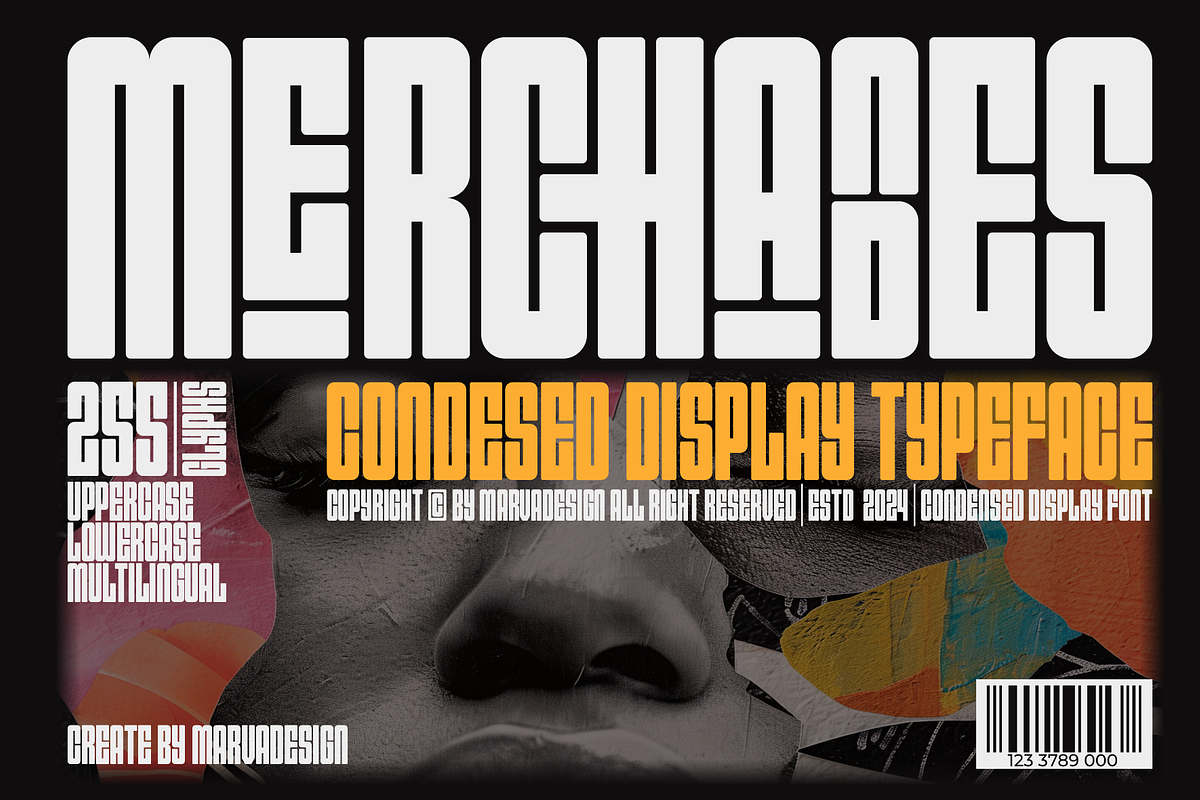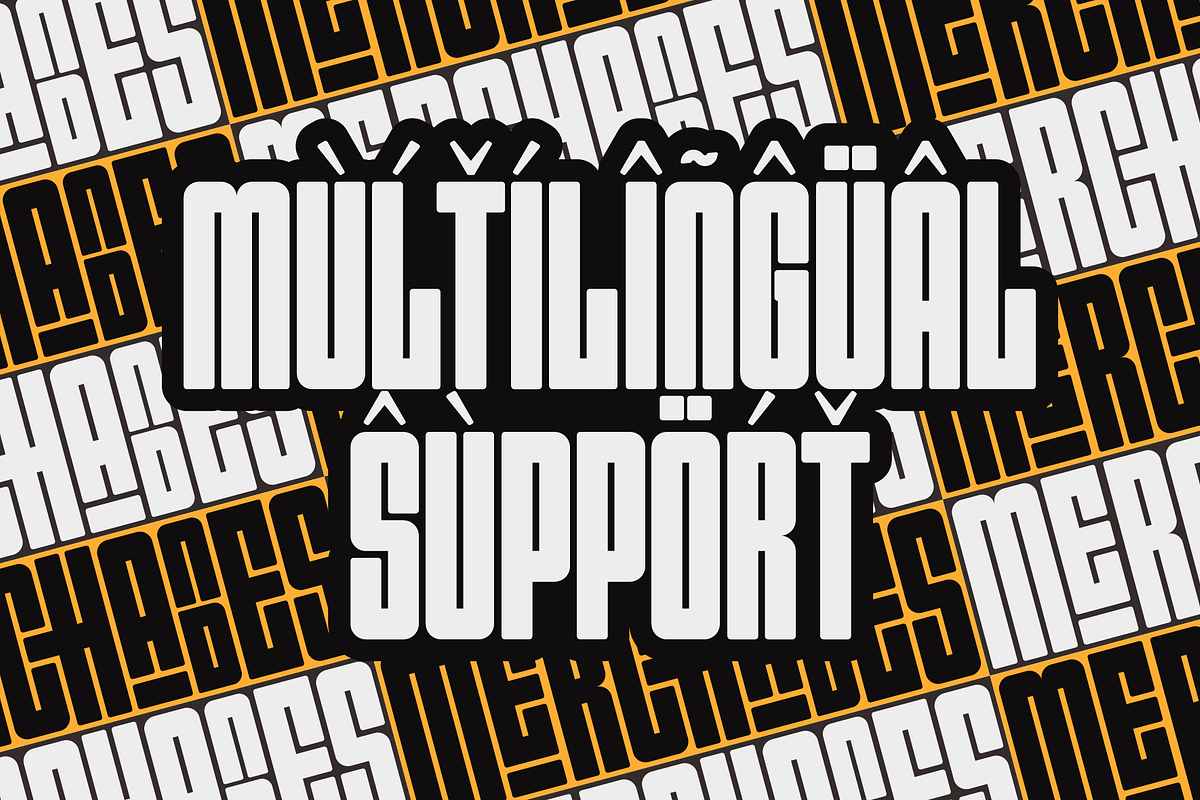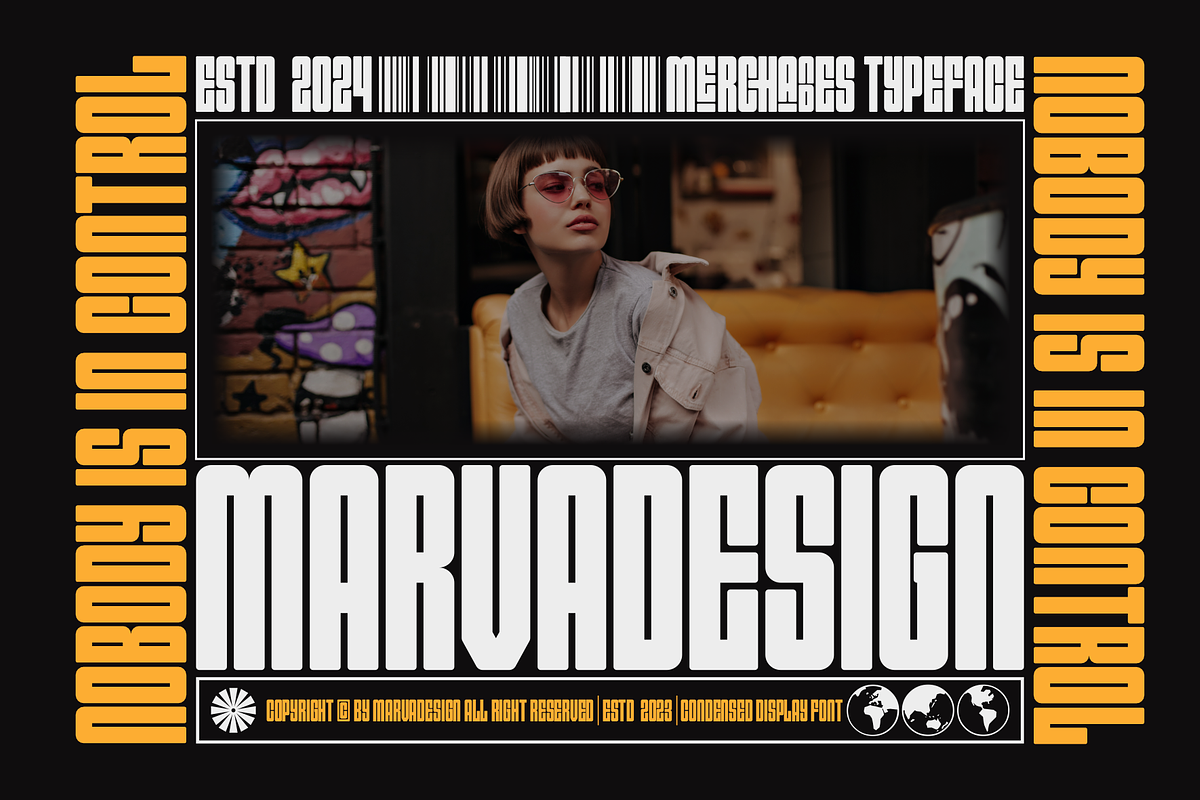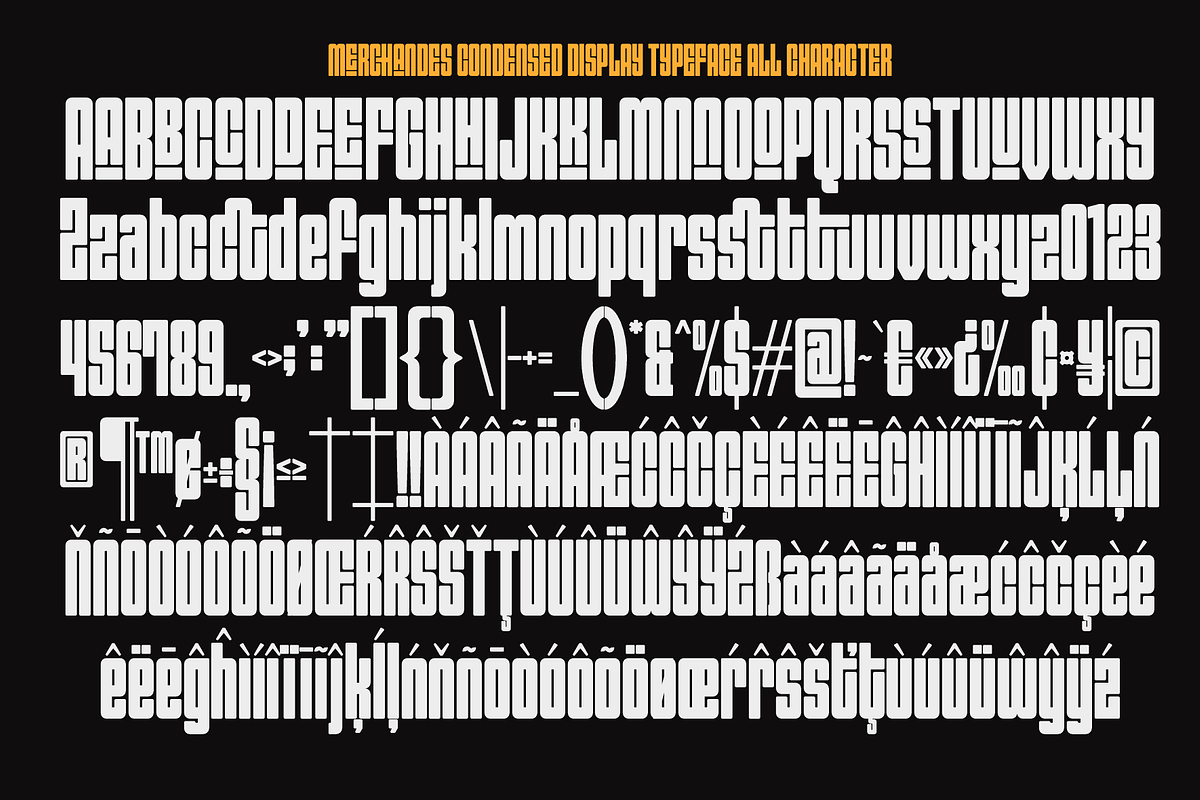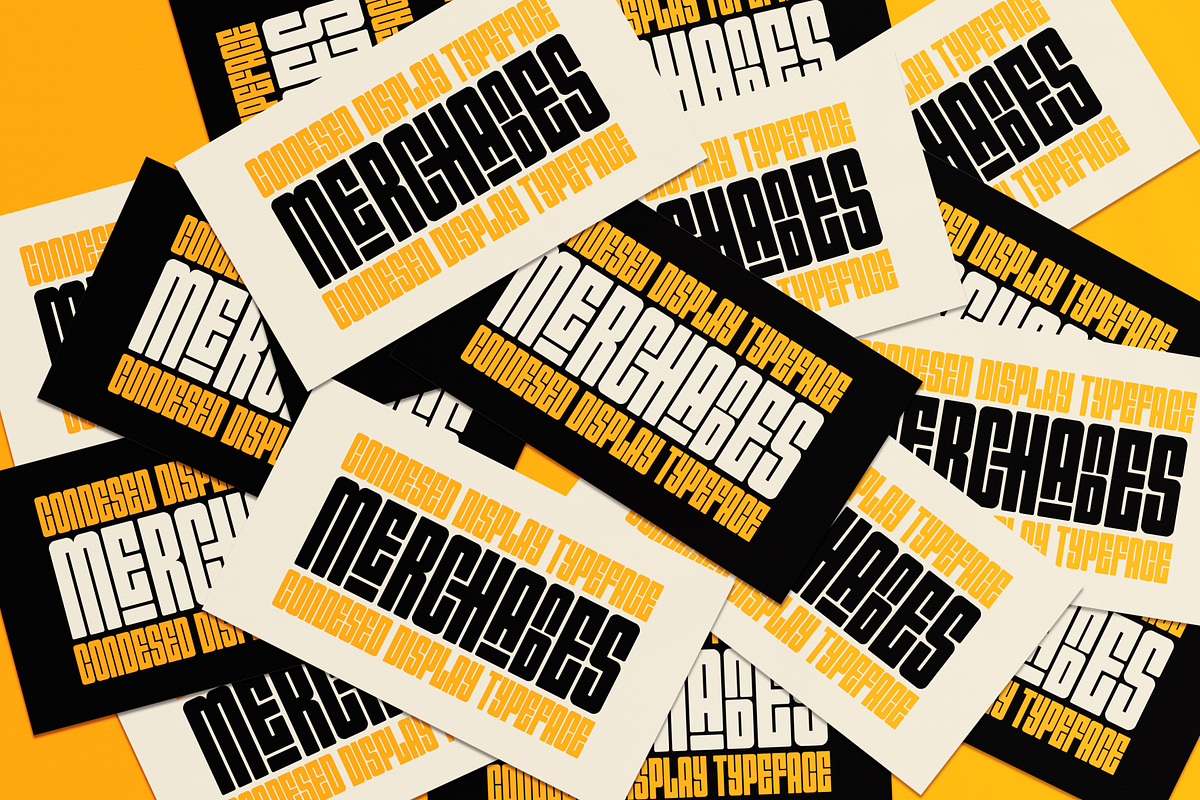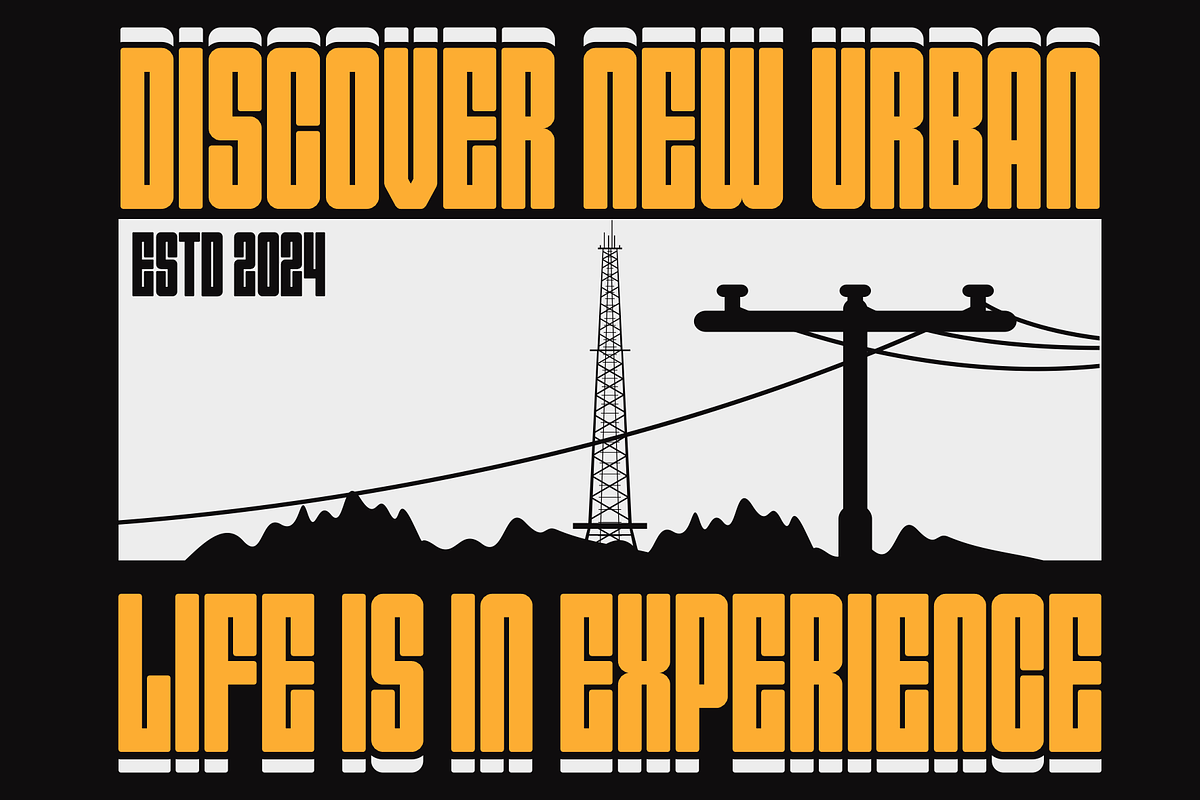
Merchandes - A Condensed Display Fon
Introducing our new product Merchandes Font - A Condensed Display Font authentic display font. The font is suitable for any branding project like logo, Template Design, Product and many more. outstanding in a wide range of contexts.